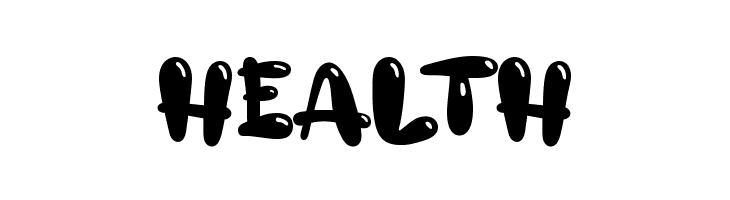
Cartoon Fonts
Babyque Regular Font
Font by Creatype Studio
A bold, playful handwritten font with thick strokes and rounded edges.
Back To Fishing Font
Font by Eddy Goodboy
A playful, bold handwritten font with a casual and friendly style.
Backpacker DEMO Font
Font by Trim Studio
A playful, hand-drawn font with whimsical and bold letterforms.
Bacon [taste the bacon] Font
A playful, hand-drawn font with bold, cartoon-like characters.
BadIntentions Font
Font by Des Gomez
A playful, hand-drawn font with bold outlines and decorative patterns.
Badumsquish [personal use only Font
Font by Amber Nest
A playful, hand-drawn font with tall, narrow characters and a whimsical style.
Bagayaga Font
Font by Zain Fahroni
A bold, playful font with a hand-drawn, irregular style.
Bagie Bold Font
Font by Kong Font
A bold, playful font with thick strokes and rounded edges.
Bagonk Font
Font by Kong Font
A bold, playful font with exaggerated, uneven strokes and a whimsical style.
Baimbo Font
Font by Kong Font
A playful, bold font with rounded edges and a hand-drawn feel.
Baimbo Italic Font
Font by Kong Font
A bold, italic script font with high contrast and dynamic style.
Bajira Font
Font by Denny Subagja
A playful, hand-drawn font with a whimsical and friendly appearance.
Bakari-Regular Font
Font by Letteralle Studios
A bold, playful font with rounded characters and a modern feel.
Bakeapple DEMO Regular Font
Font by Hanoded
A playful, bold font with a whimsical, hand-drawn style.
Bakery Goods Regular Font
Font by Niskala Huruf
A bold, playful font with a handcrafted, whimsical style.
Bakul Nasi Font
Font by Khurasan
A playful, bold font with rounded, thick strokes and a whimsical touch.
BALGHINA V2 Demo Font
Font by Mchcrafter
A playful, bold font with organic, blob-like shapes and a hand-drawn feel.
BALGHINADEMO-Regular Font
Font by Mchcrafter
A playful, hand-drawn font with bold, irregular outlines and a whimsical style.
Balinesia Font